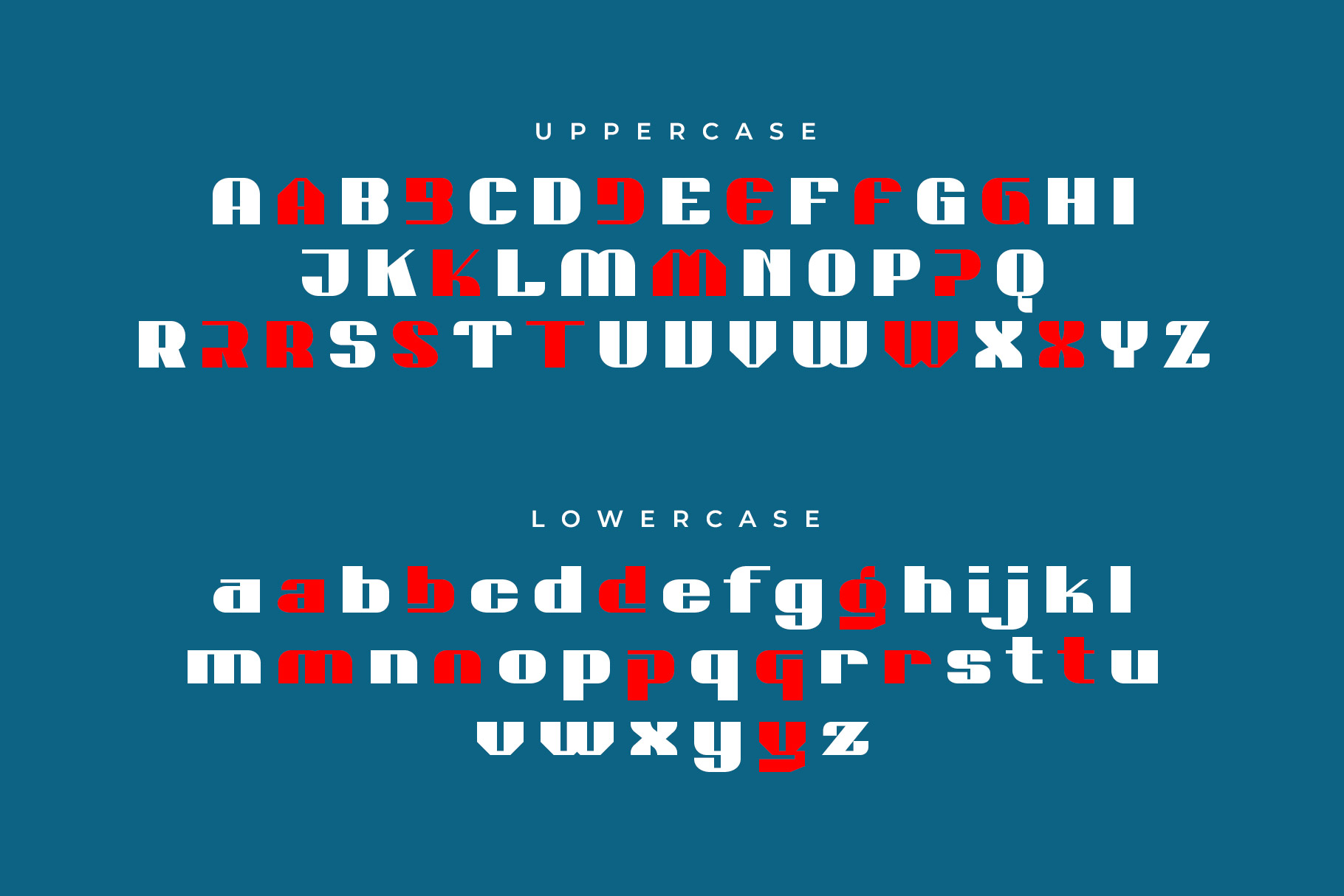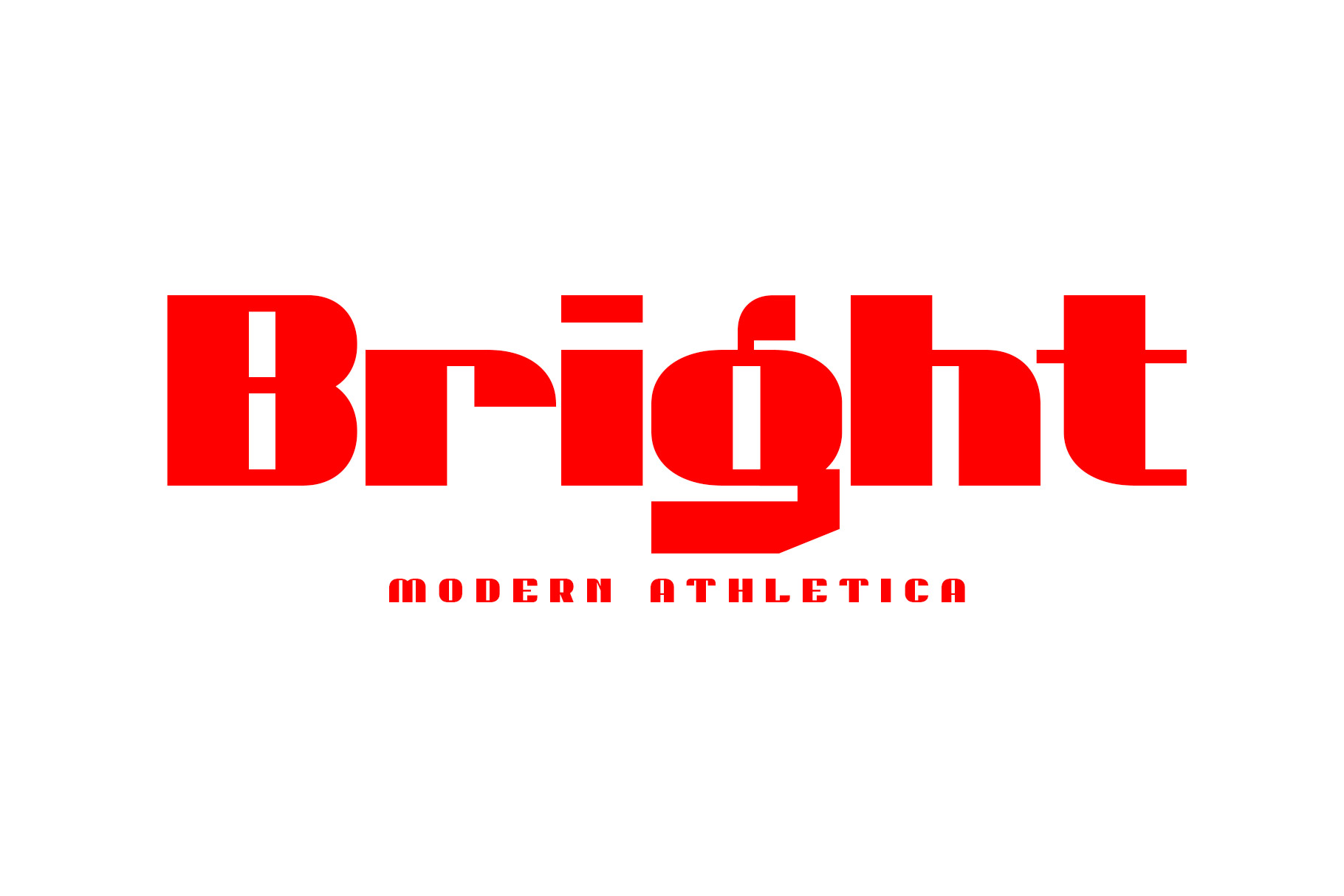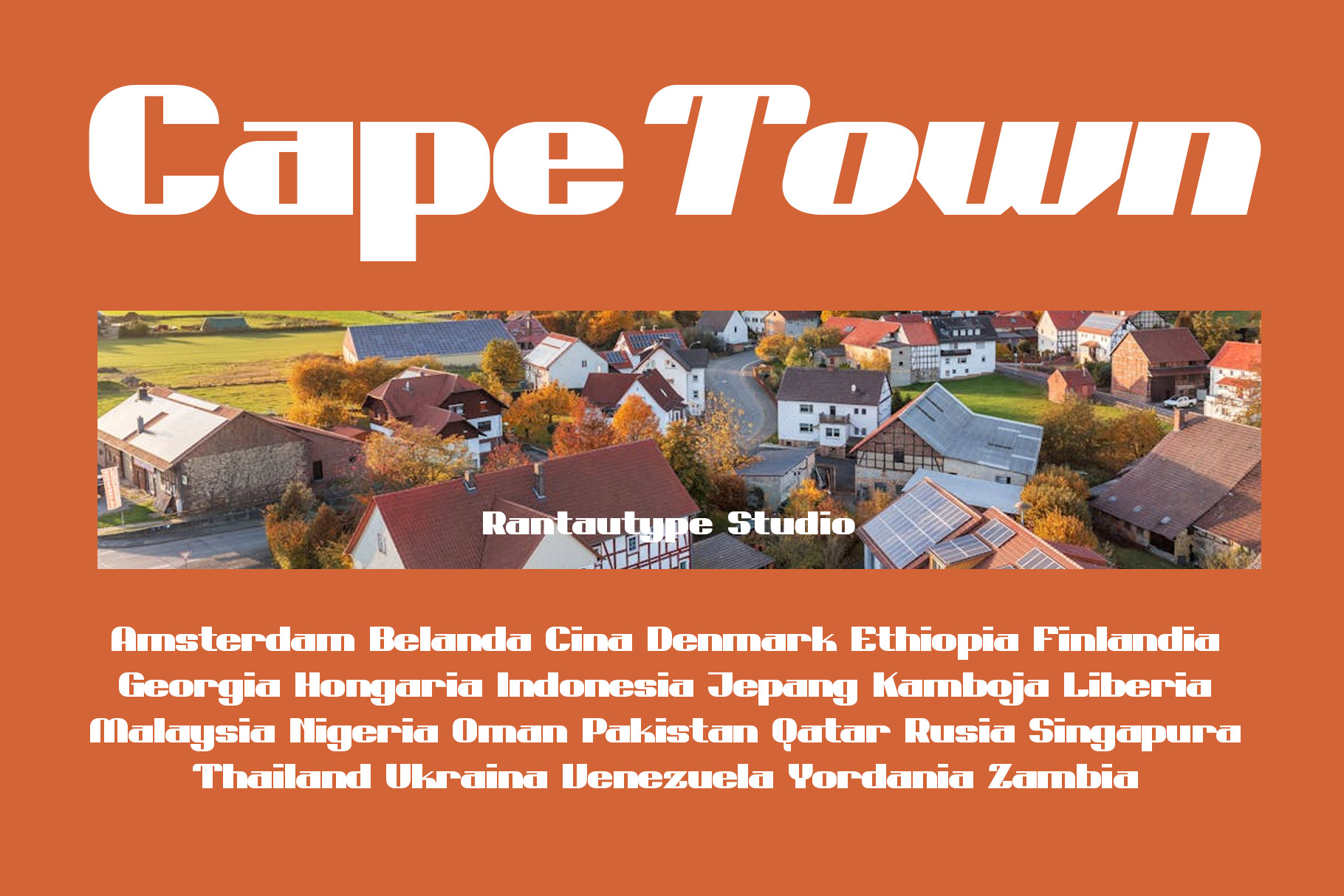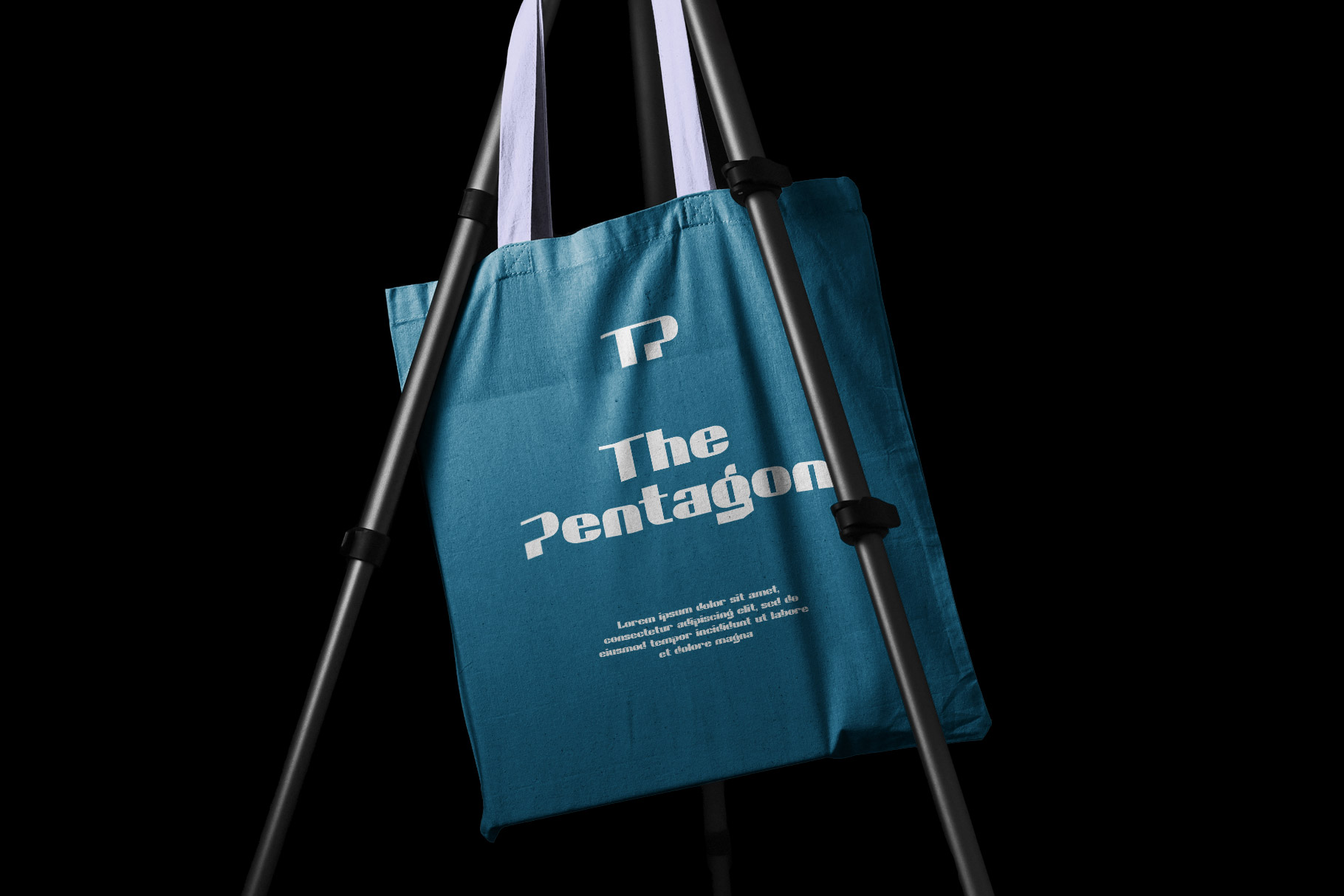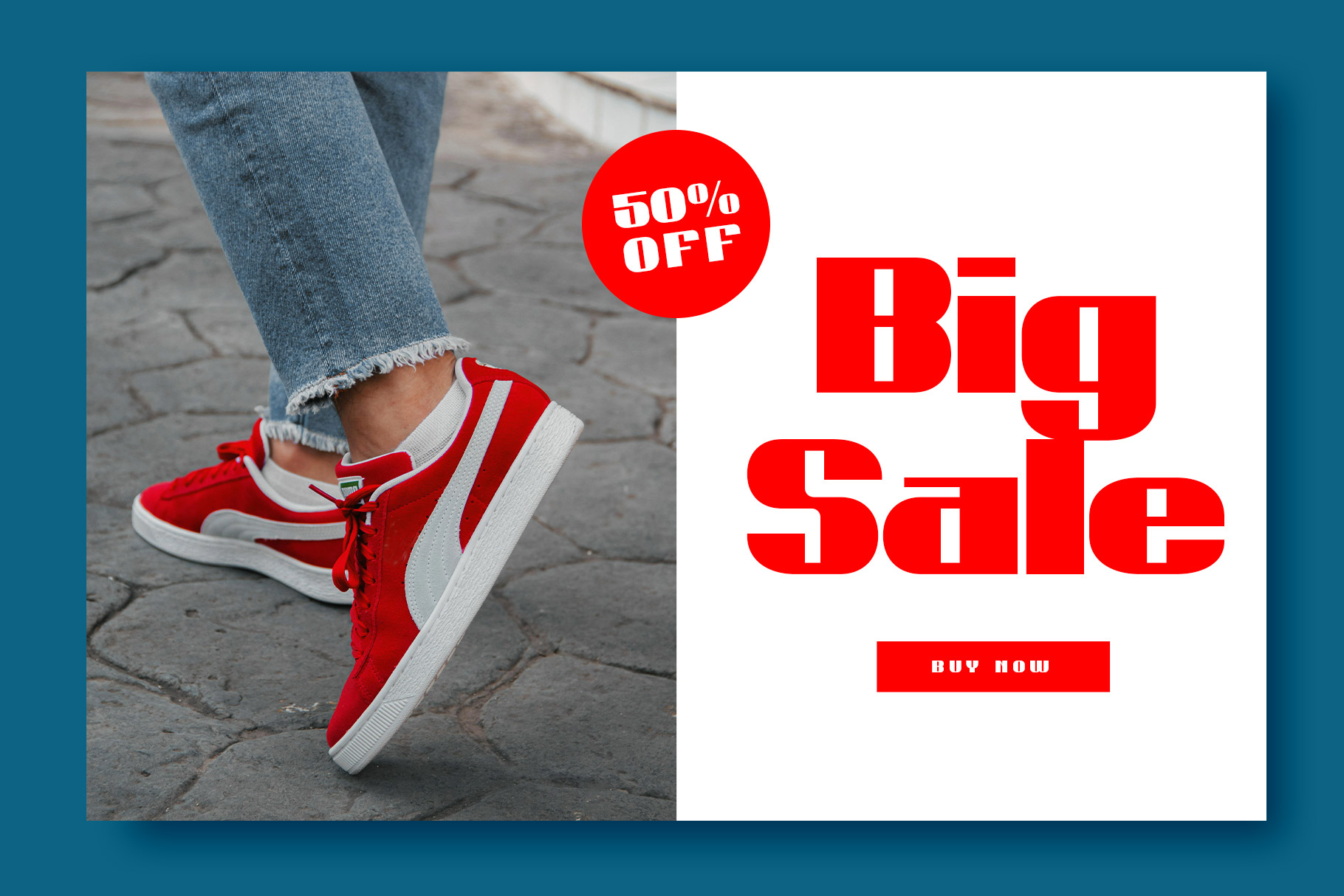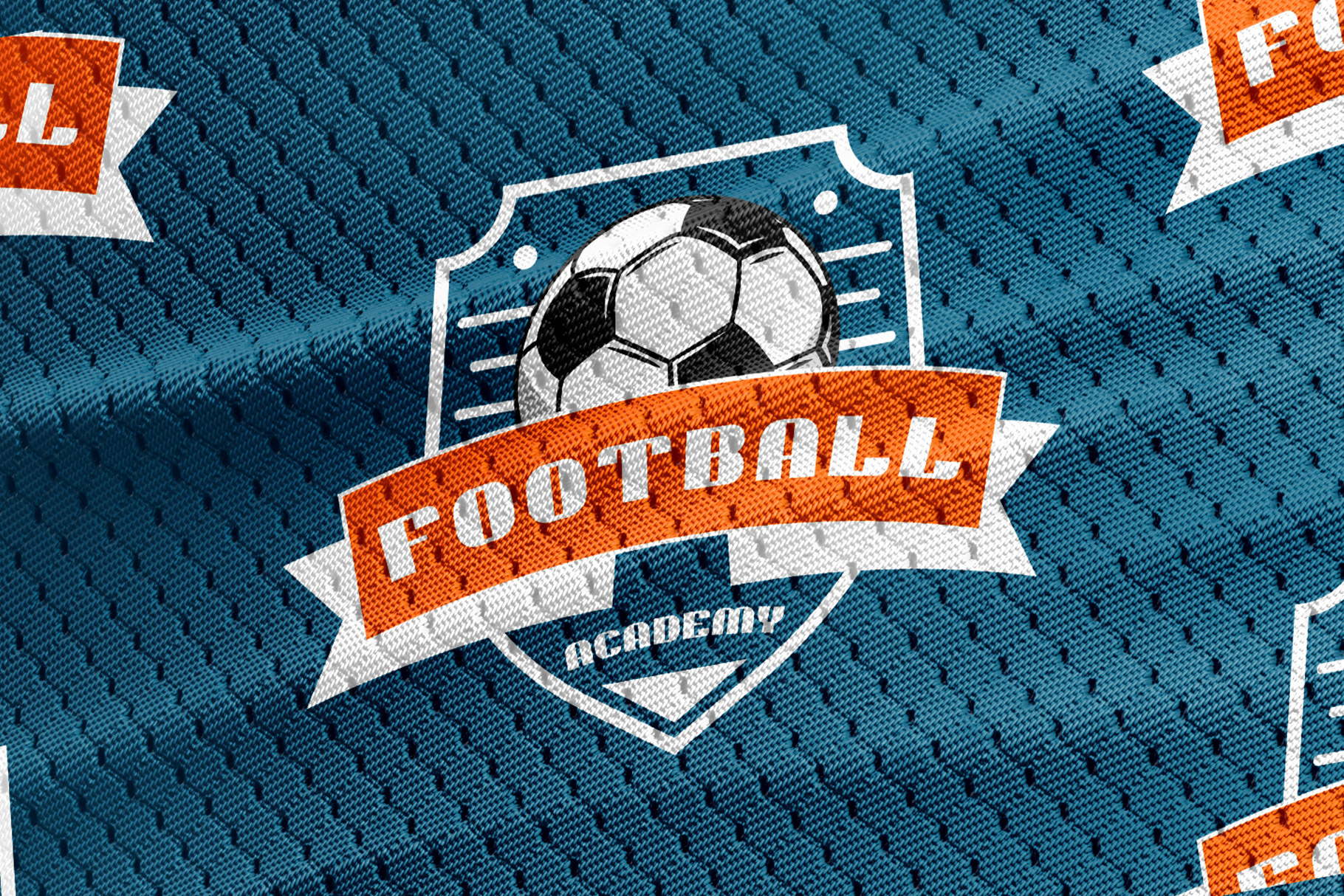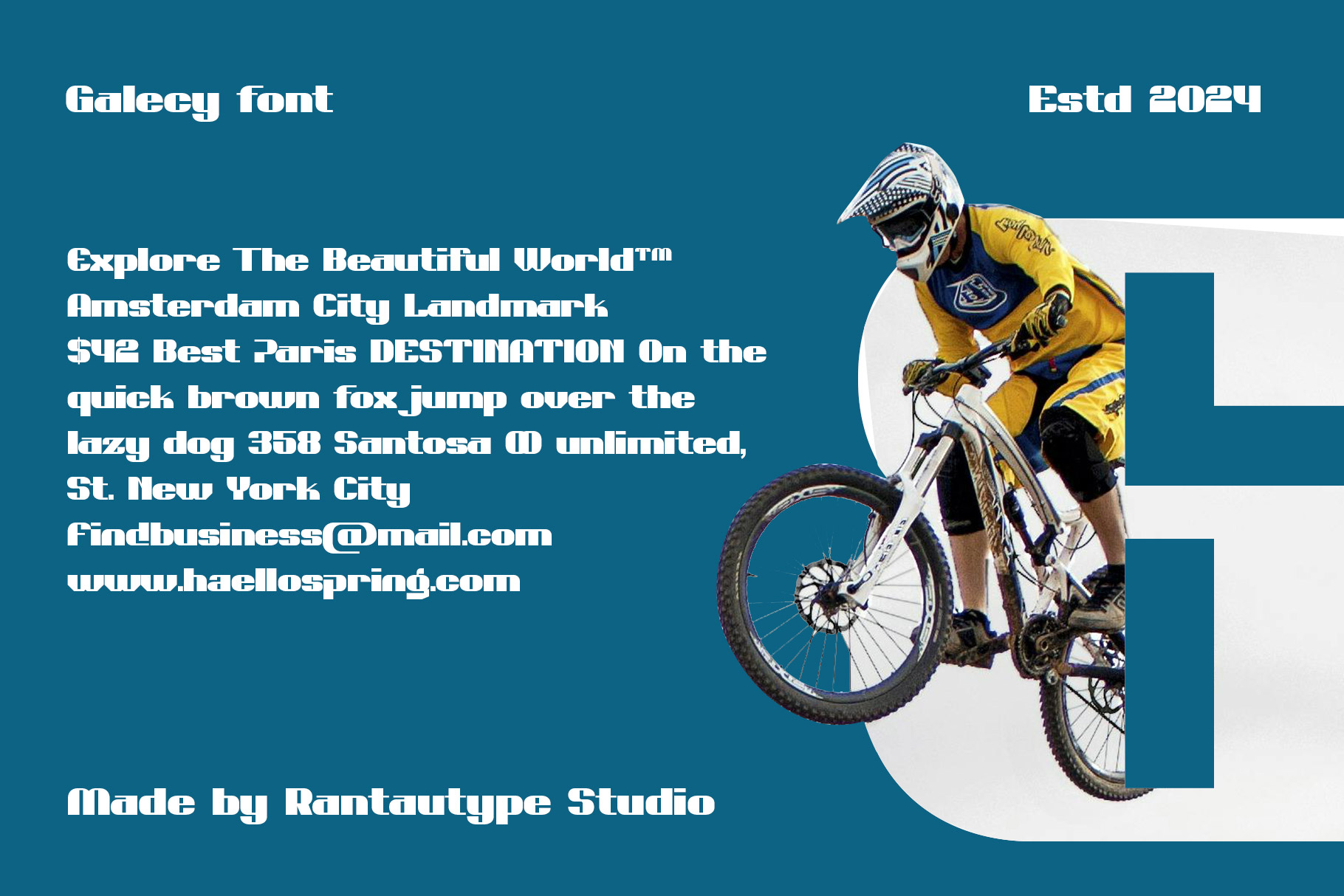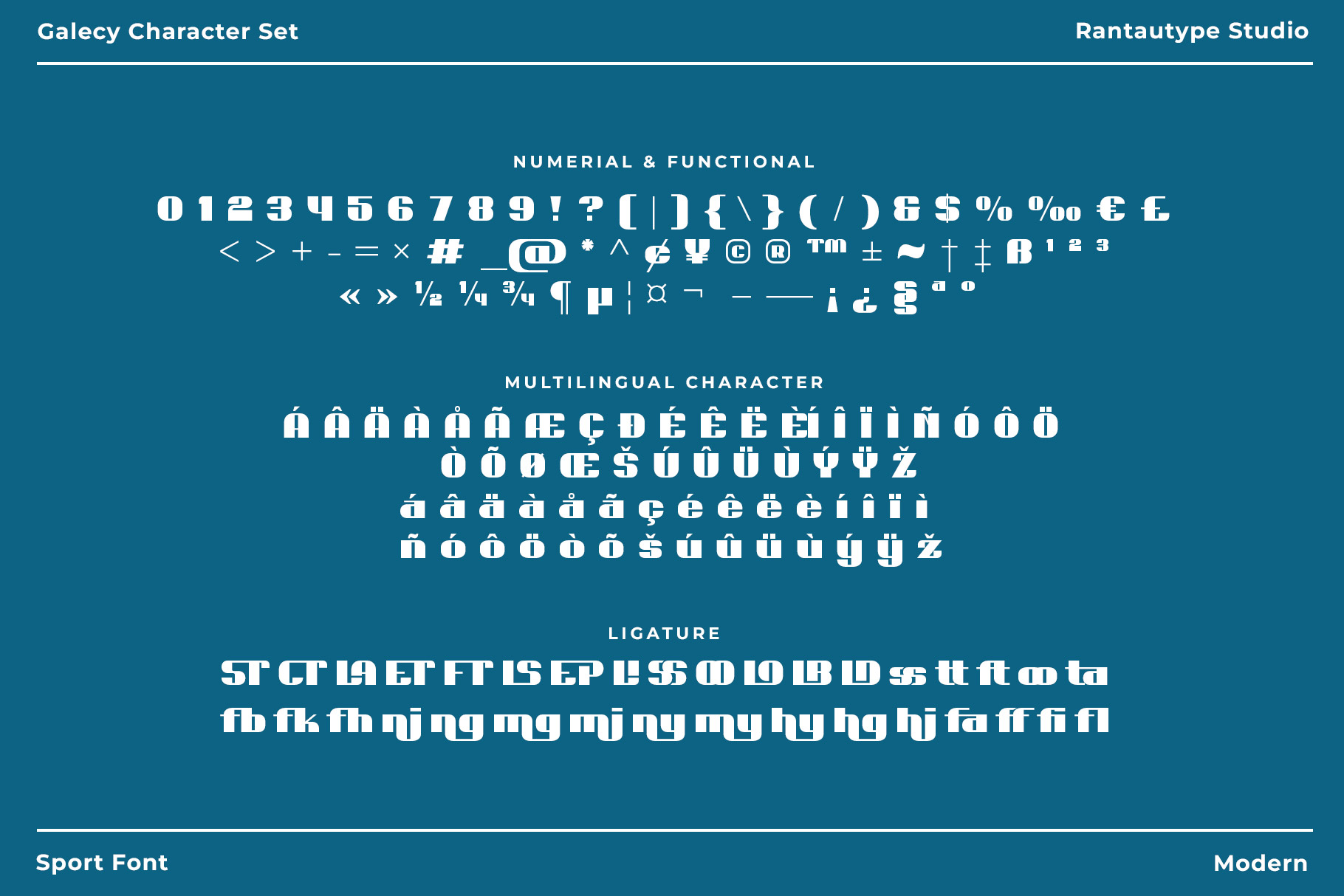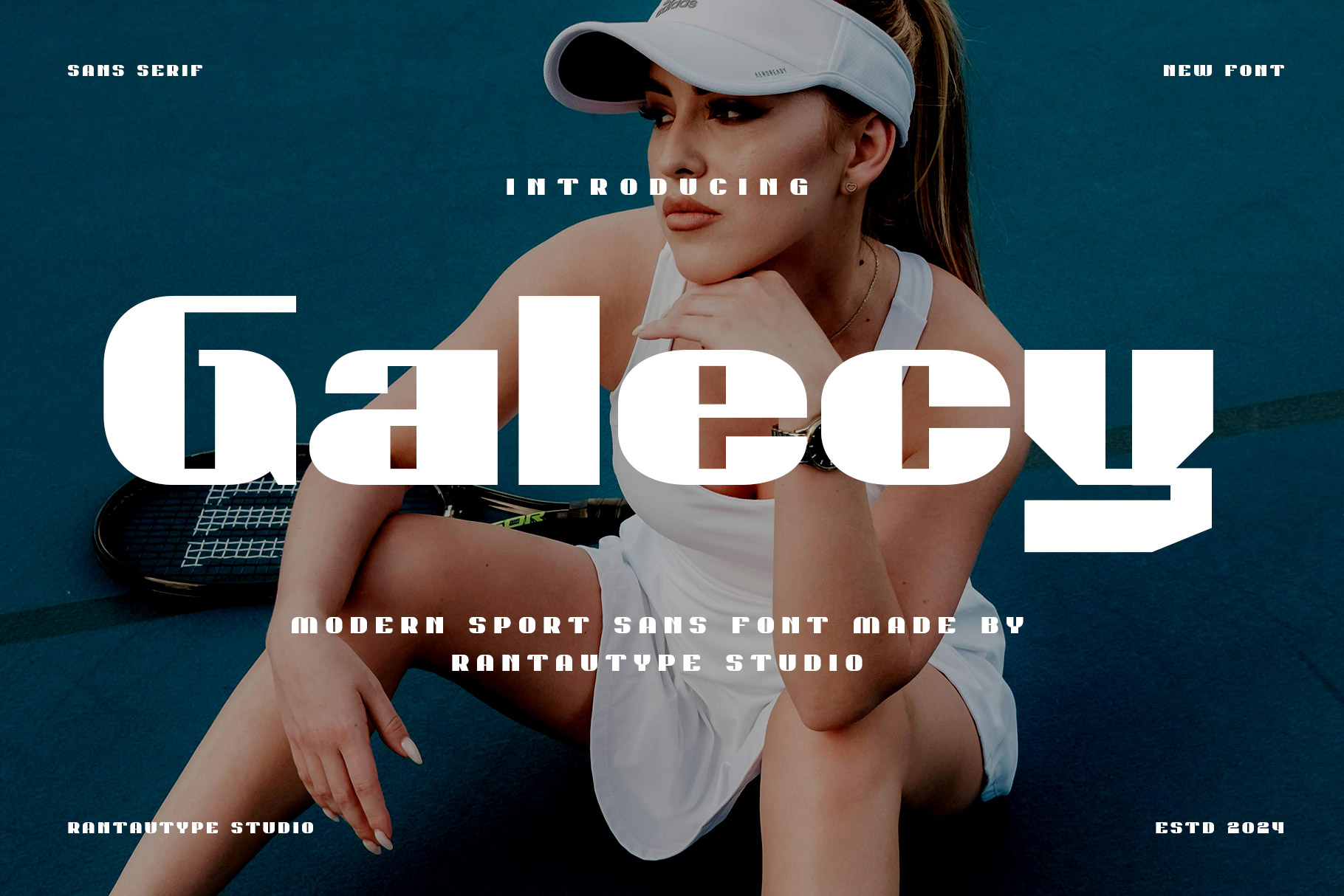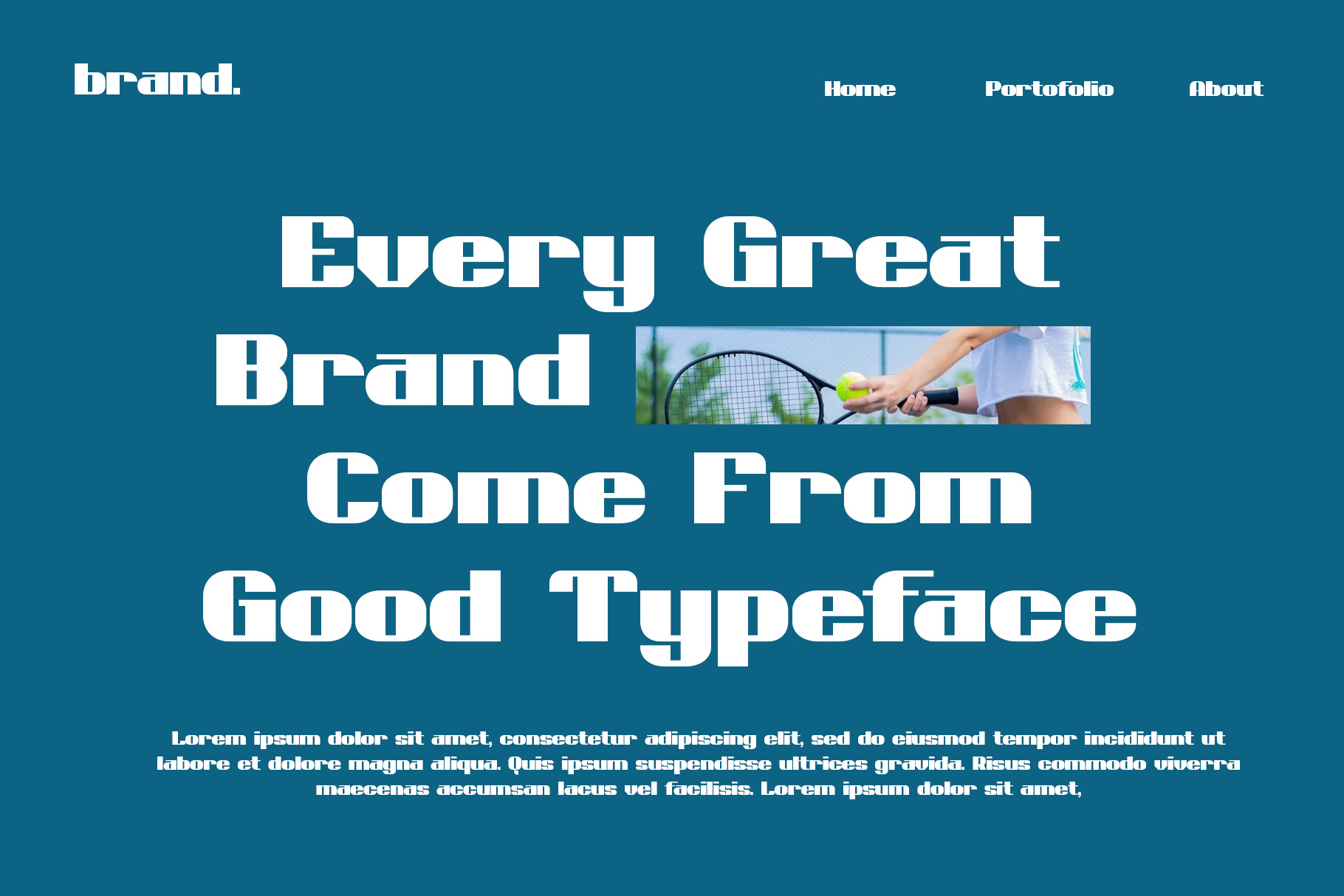
Galecy is modern sport with bold contrast shape. Galecy bring strong character and powerfull shape to make you design project out standing! Galecy is a perfectly choice for any creative endeavor, chic, lifestyle design such as logotype, advertisements, watermark on photography, stationery, branding project, display and magazine, invitation, corporate brand, product design, label, business project and many other project with modern or sport touch.